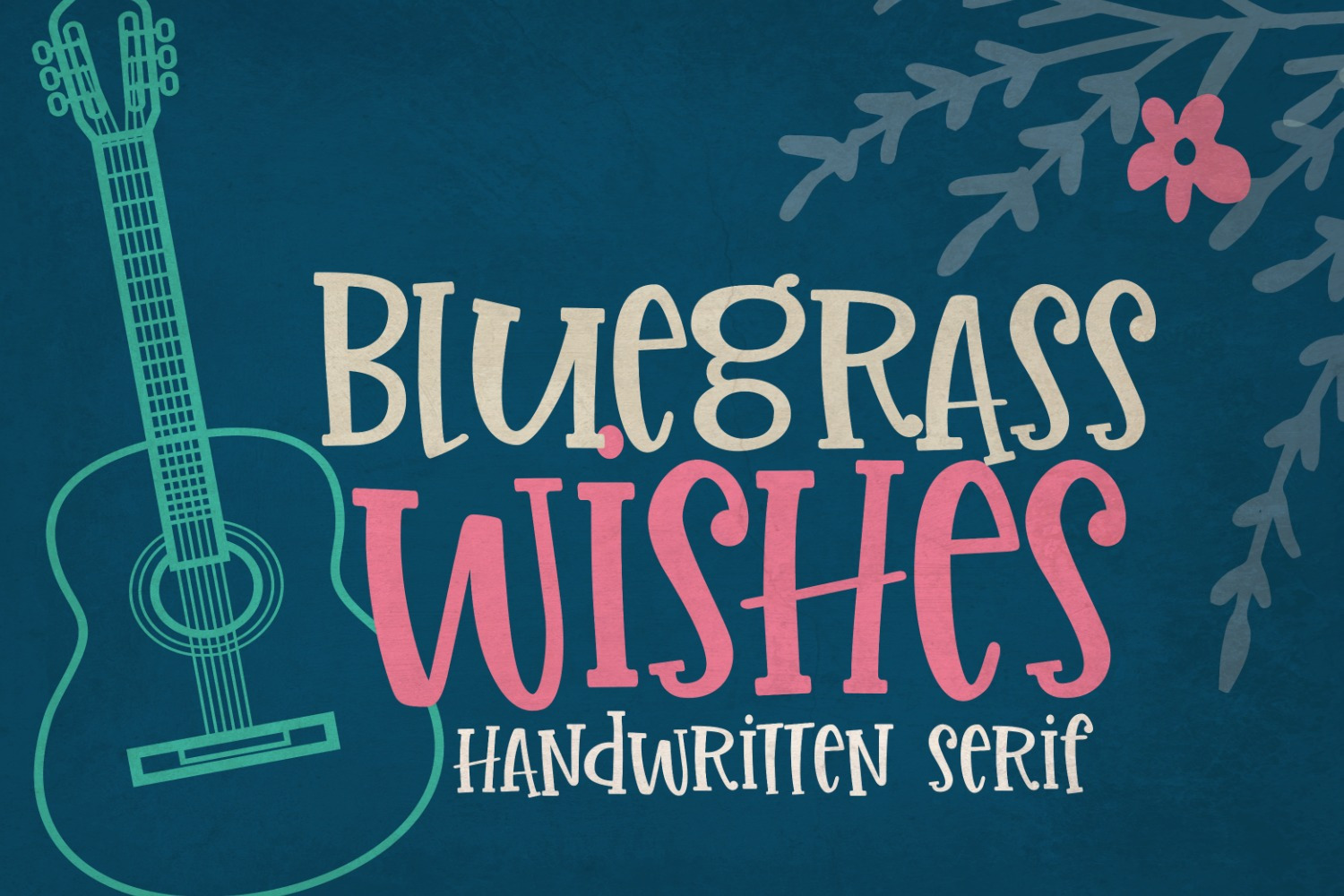
Bluegrass Wishes Handwritten Font
Bluegrass Wishes is a charming handwritten serif bursting with personality! It comes in two styles: regular and solid.